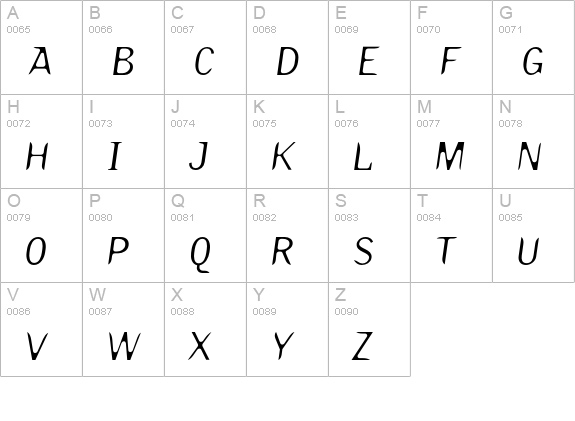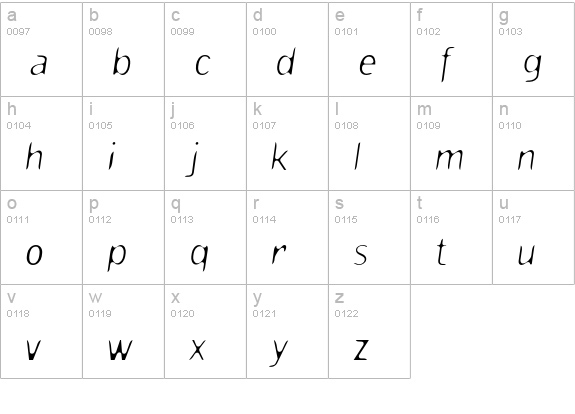
Introducing Truth-LiteSlanted font, the epitome of modern elegance and sleek sophistication. With its seamless blend of clean lines and subtle slant, this font exudes a refined charm that effortlessly captures attention. Truth-LiteSlanted font is the perfect choice for those seeking a balance between simplicity and style. Its slender and gracefully angled letterforms create a sense of movement, making it the ideal companion for any design project that demands a dash of contemporary flair. Featuring a meticulously crafted design, Truth-LiteSlanted font offers unparalleled legibility while maintaining a distinctive personality. Whether you're designing captivating headlines, eye-catching logos, or stylish branding materials, this font will undoubtedly elevate your work to new heights. And the best part? Truth-LiteSlanted font is absolutely free! You can easily download it at FontsMarket.com, where creative possibilities await. Say goodbye to the constraints of limited resources, as this font allows you to freely express your artistic vision without compromising quality. So why wait? Embark on a typographic journey like no other with Truth-LiteSlanted font. With its versatility and timeless appeal, it is sure to become your go-to choice for all your design endeavors. Download it now and take your creations to the next level of excellence.